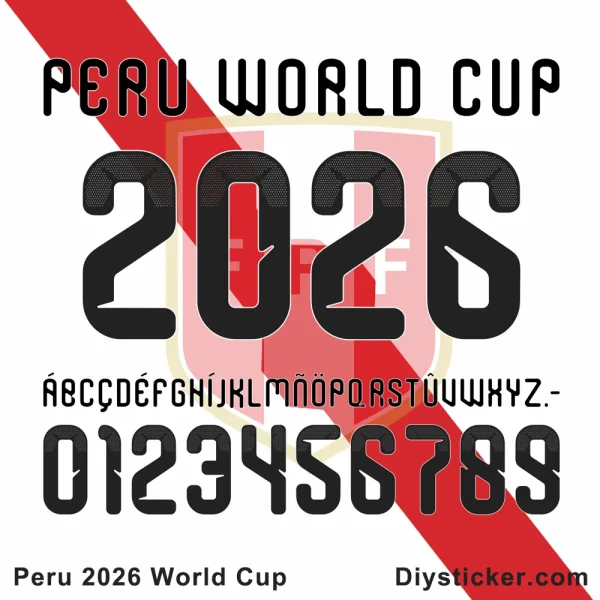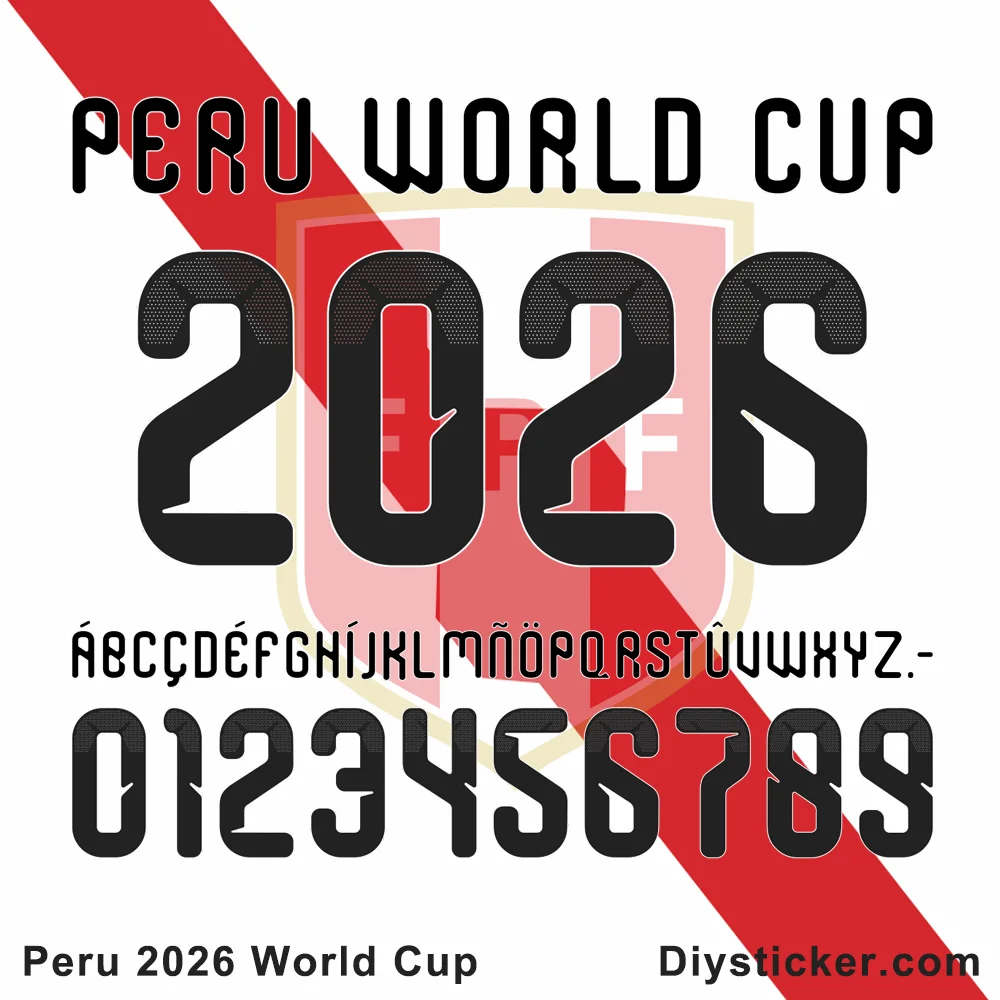
Peru 2026 World Cup Font Vector
Show your support for La Blanquirroja with the official Peru 2026 World Cup Font. This is the authentic typeface used by the Peruvian Football Federation (FPF) for its official World Cup kits, player names, numbers, and tournament graphics.